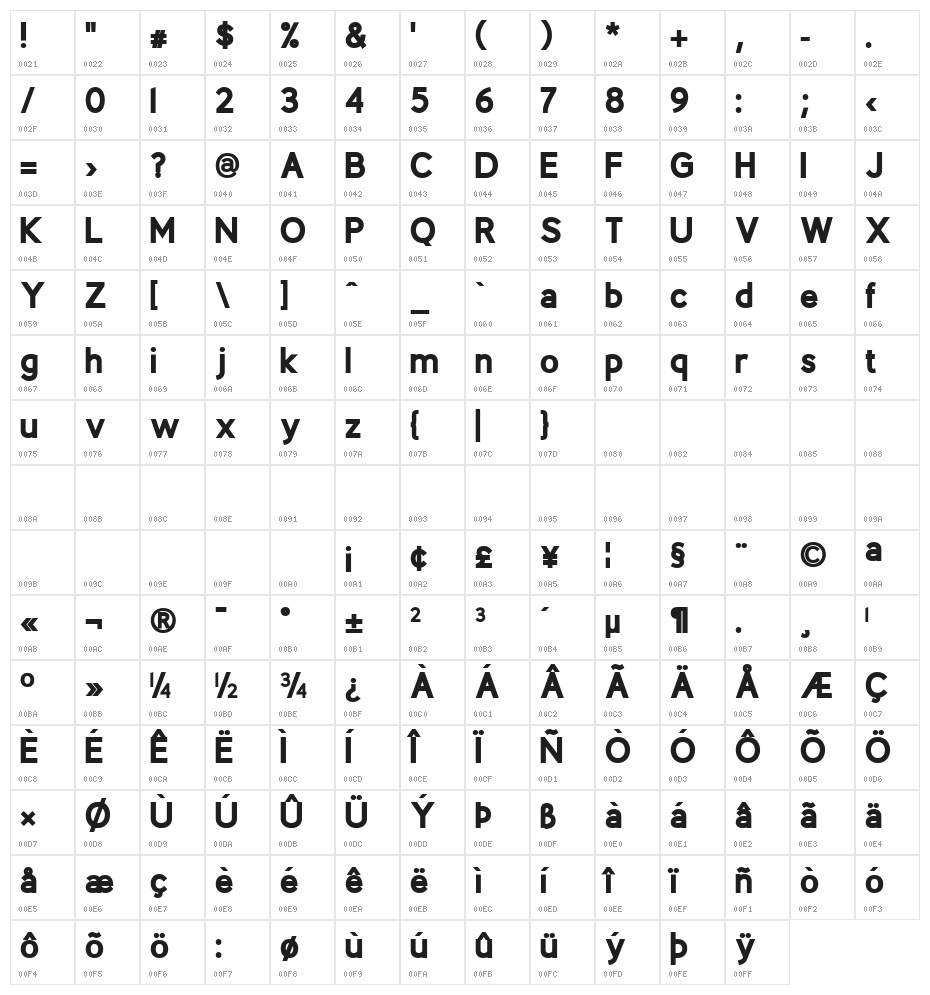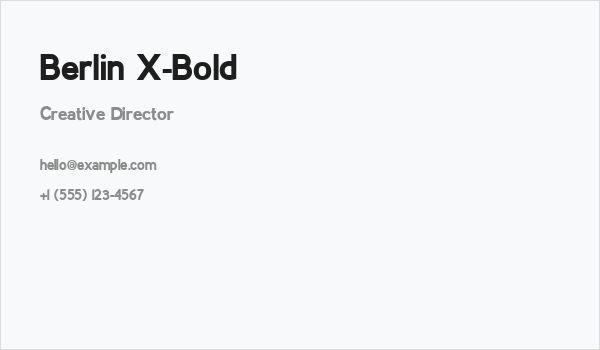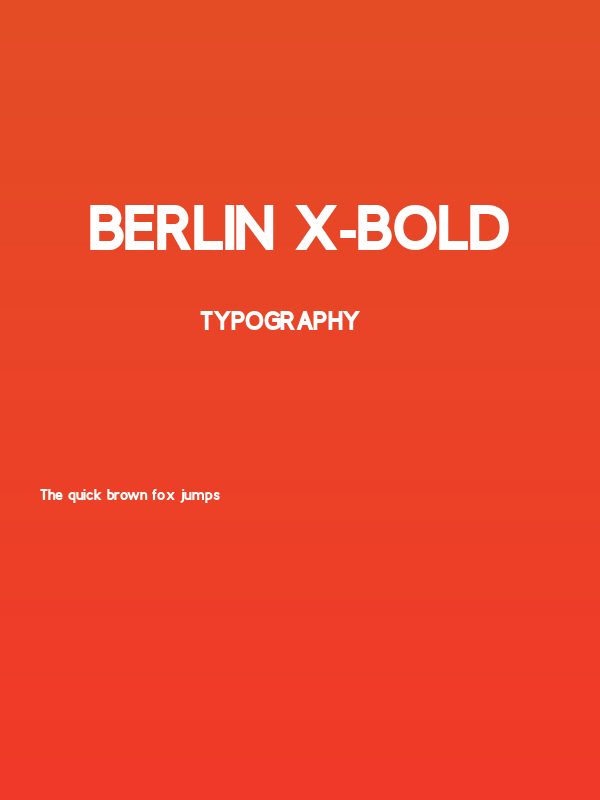
Berlin X-Bold Font
Berlin X-Bold Description
This typeface exhibits a bold and robust design, characterized by its thick, uniform strokes and clean lines. It features a geometric sans-serif style, offering a modern and professional appearance. The characters are well-balanced, with a consistent weight throughout, making it highly legible across various sizes. The uppercase letters are strong and commanding, while the lowercase letters maintain a harmonious flow. Numerals are clear and straightforward, enhancing readability. The special characters are distinct and well-integrated, ensuring versatility in different contexts.
Use CaseHeadlines, Logos, Branding
Proposed ProjectsIdeal for branding, advertising, headlines, and digital interfaces where a strong, modern presence is required.